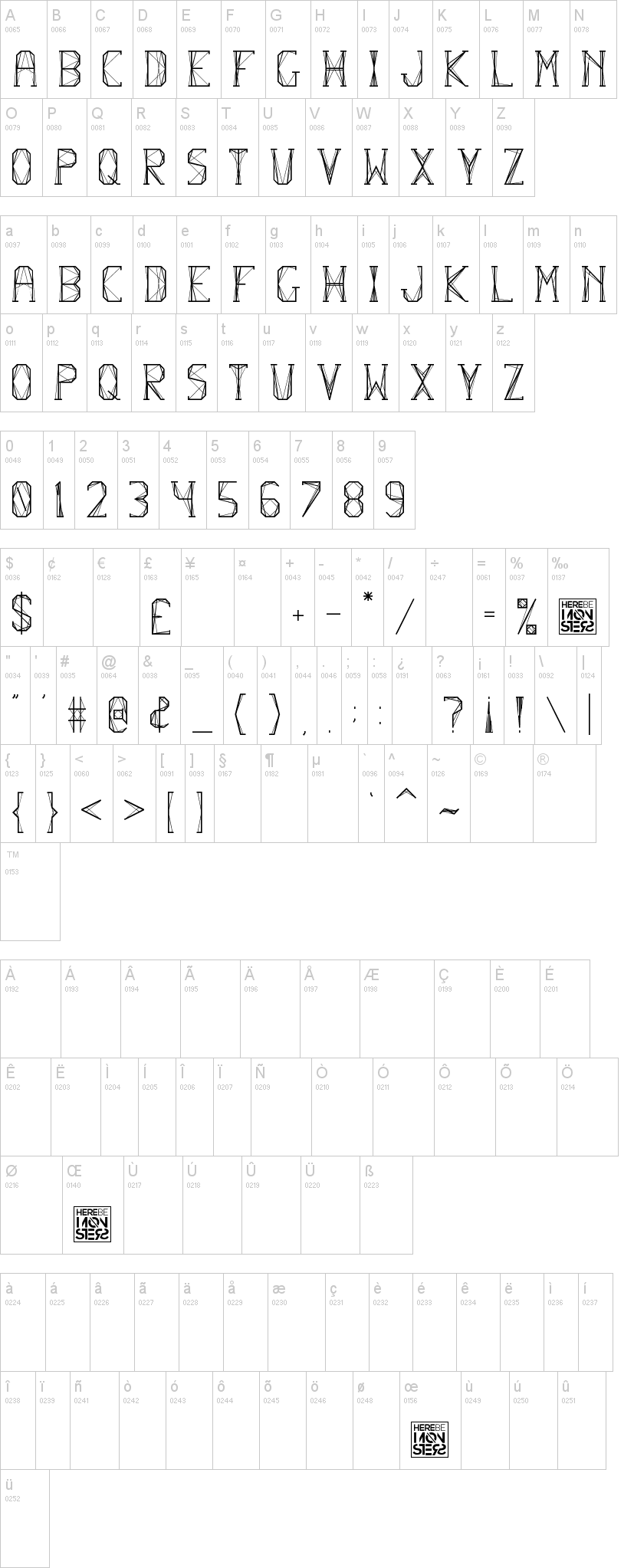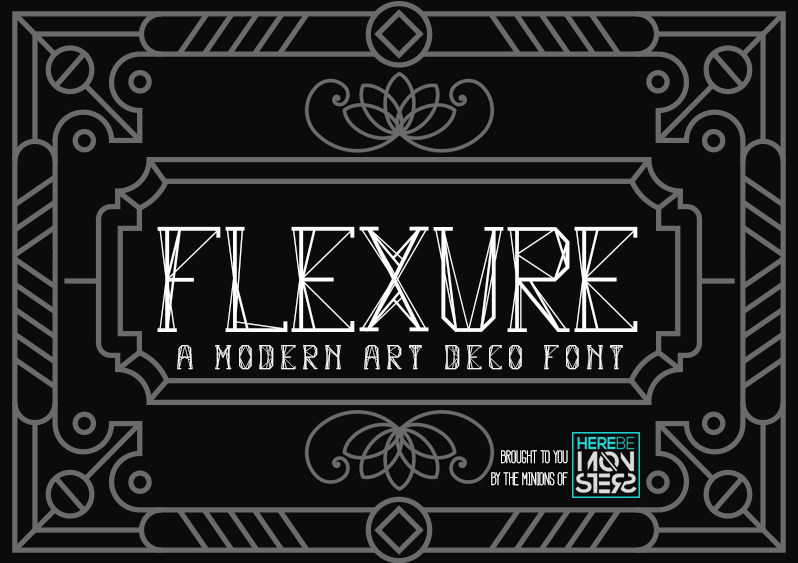
Note of the authorThe font name, Flexure, means to bend or flex; to be folded. Its angular shapes are inspired by the Art Deco movement and features geometric "scaffolding" as well as slab serifs. Flexure is great fit for those looking for a modern art deco style font.